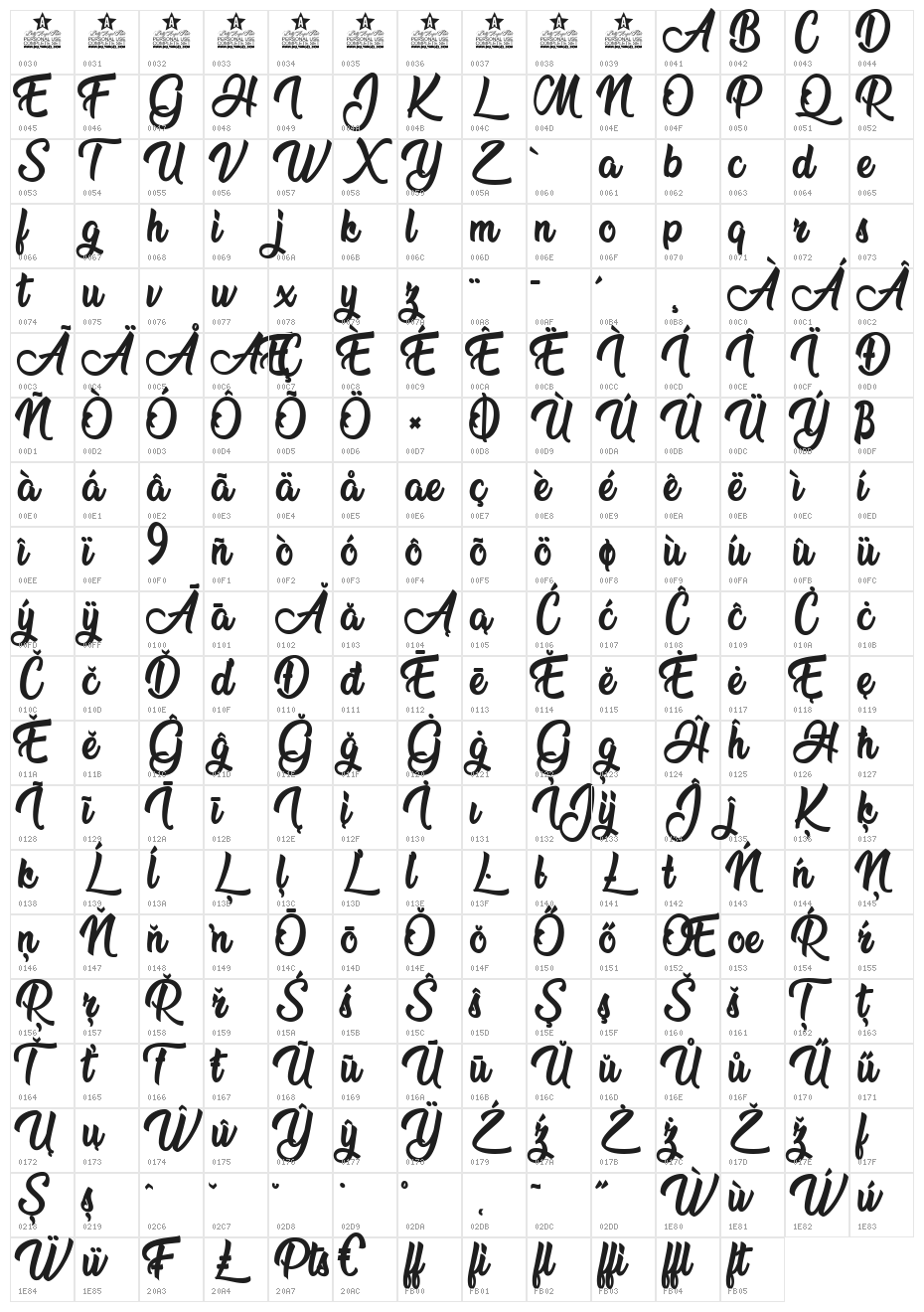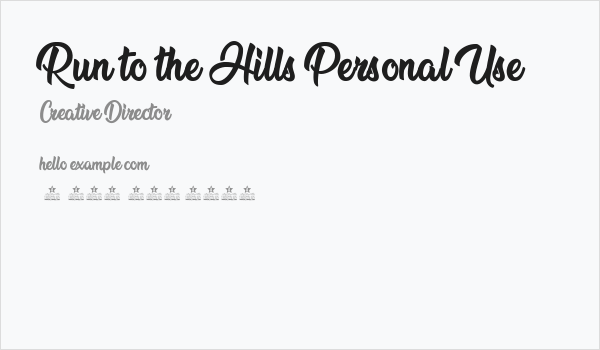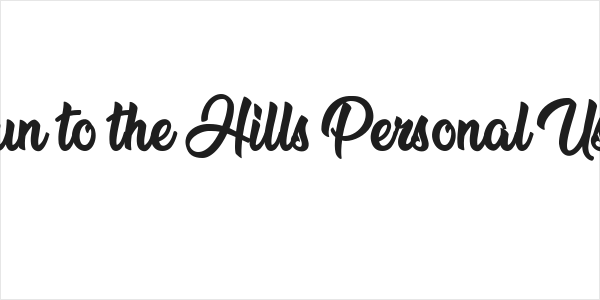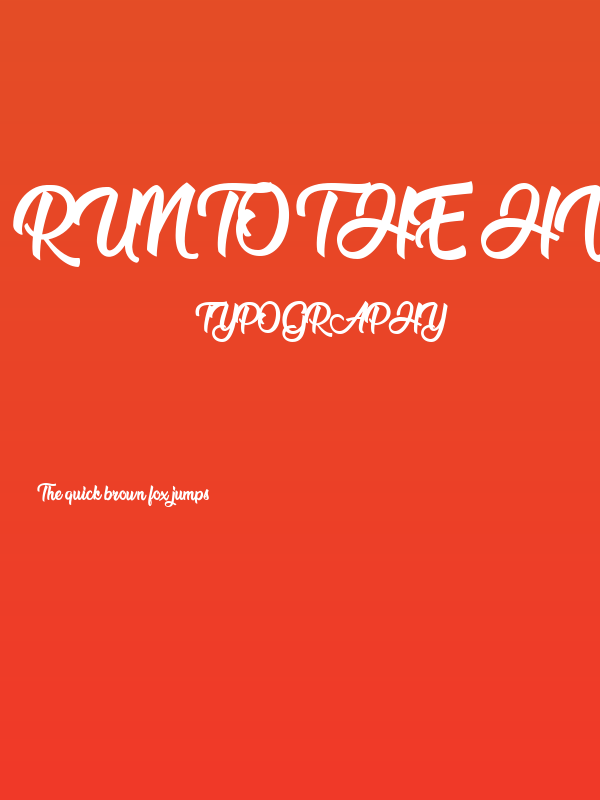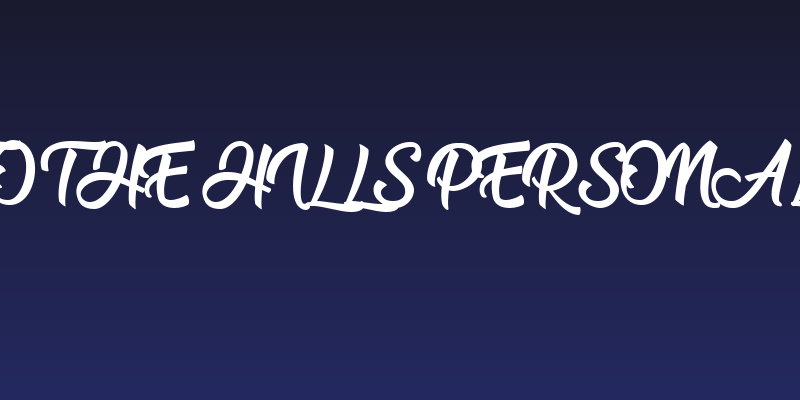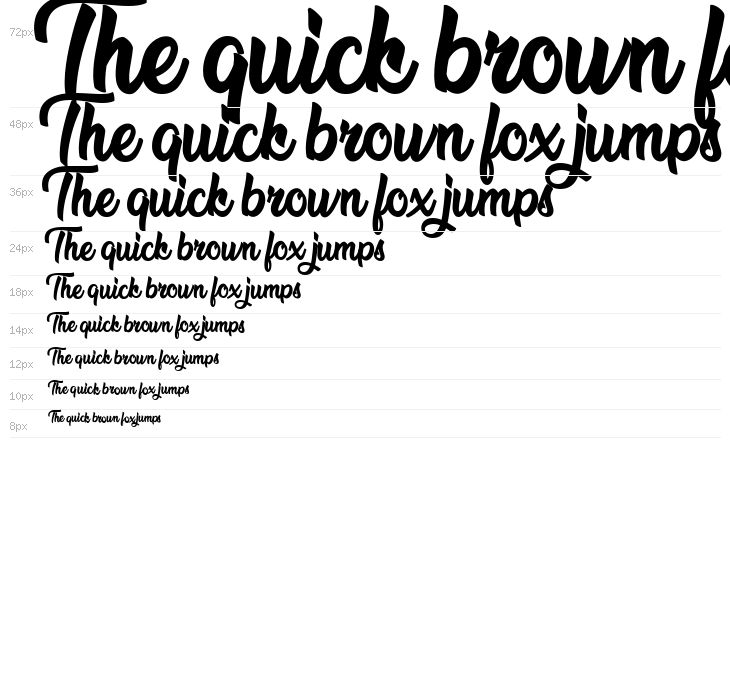
Run to the Hills Personal Use Font
Run to the Hills Personal Use Description
This font features a bold, cursive style with a flowing, handwritten appearance. The uppercase letters are elegantly connected, giving a sense of fluidity and movement. The lowercase letters maintain a consistent thickness, enhancing readability while retaining a stylish flair. The characters are closely spaced, creating a compact and cohesive look. The font's bold strokes and smooth curves make it stand out, suitable for designs that require a touch of elegance and personality. The special characters are designed to match the overall aesthetic, ensuring consistency throughout.
| Proposed Projects | Ideal for wedding invitations, greeting cards, branding projects, and decorative signage. |